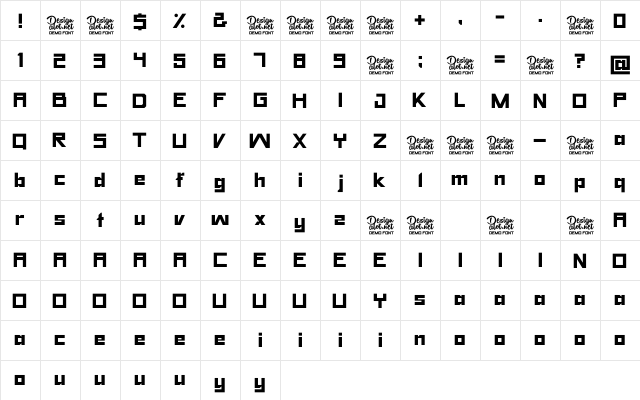
Yet Untitled Demo Regular
| Foundry | Design a Lot |
| Designer | Bogdan Casota |
Design Context for Yet Untitled Demo Typeface
Yet Untitled Demo is a composed and adaptable typeface that performs quietly and consistently across a wide range of design contexts.